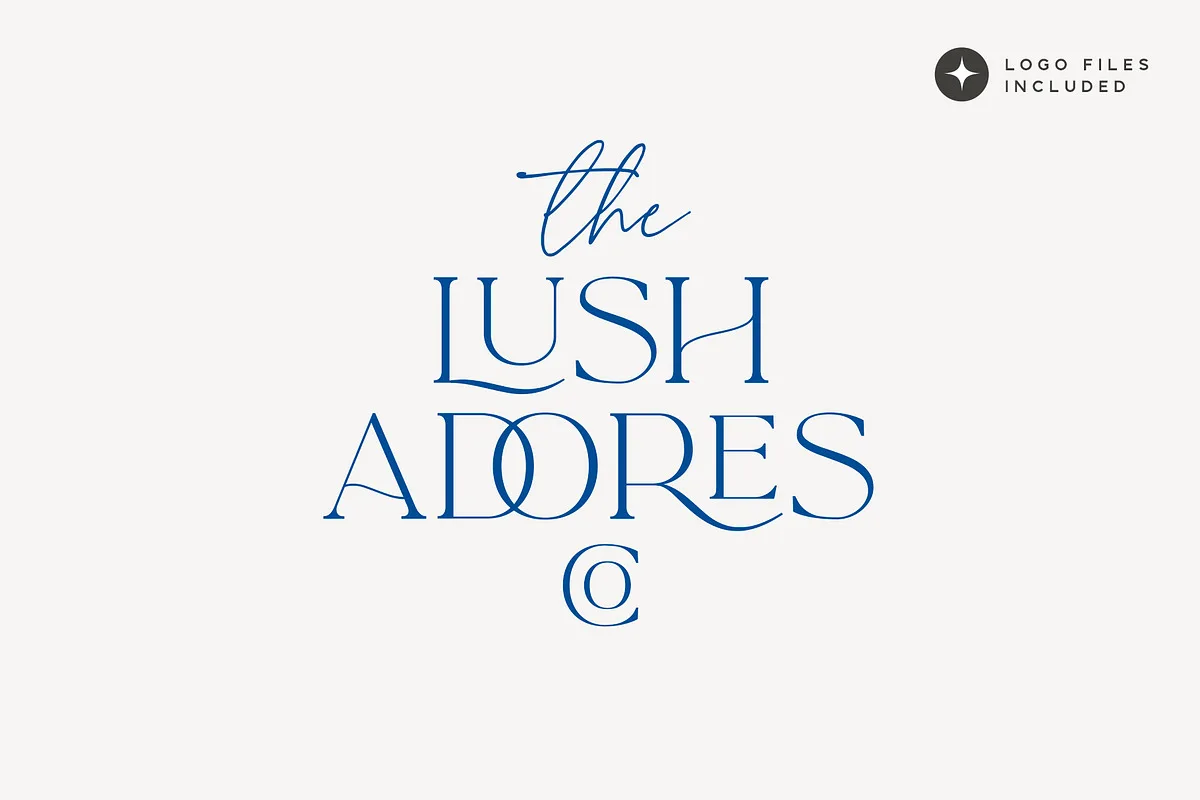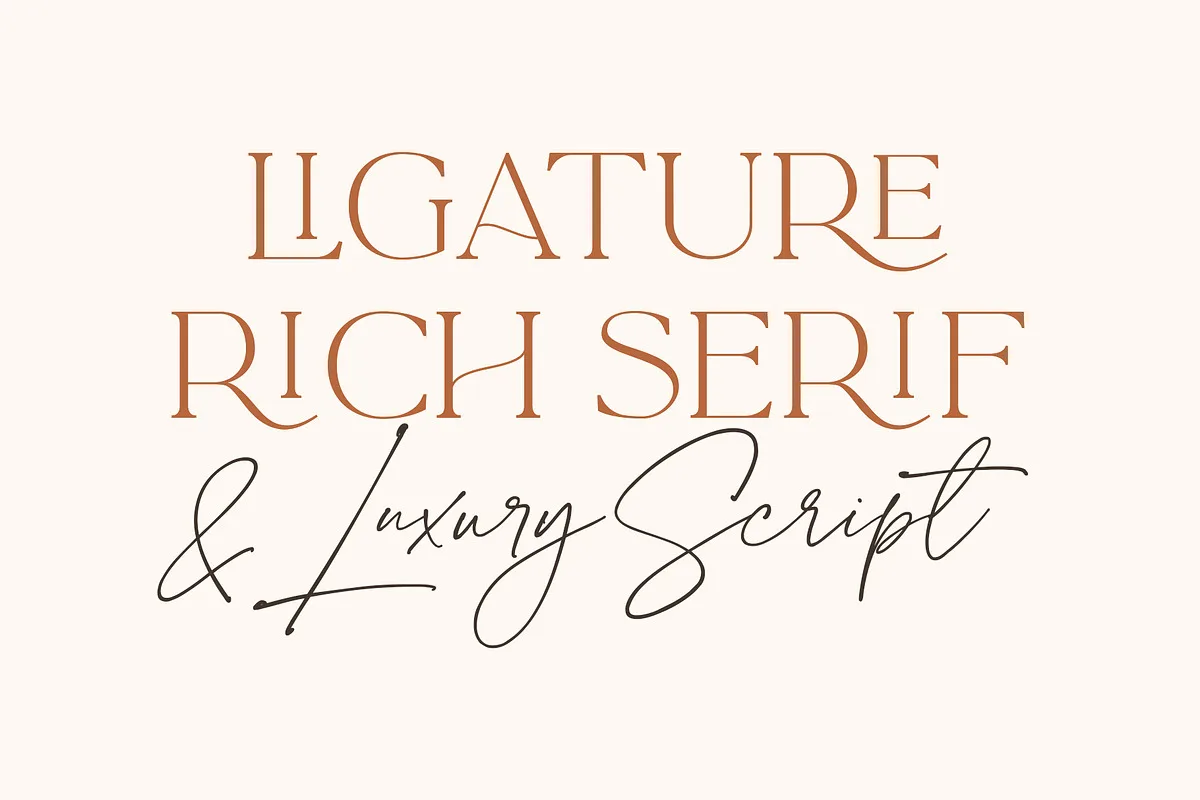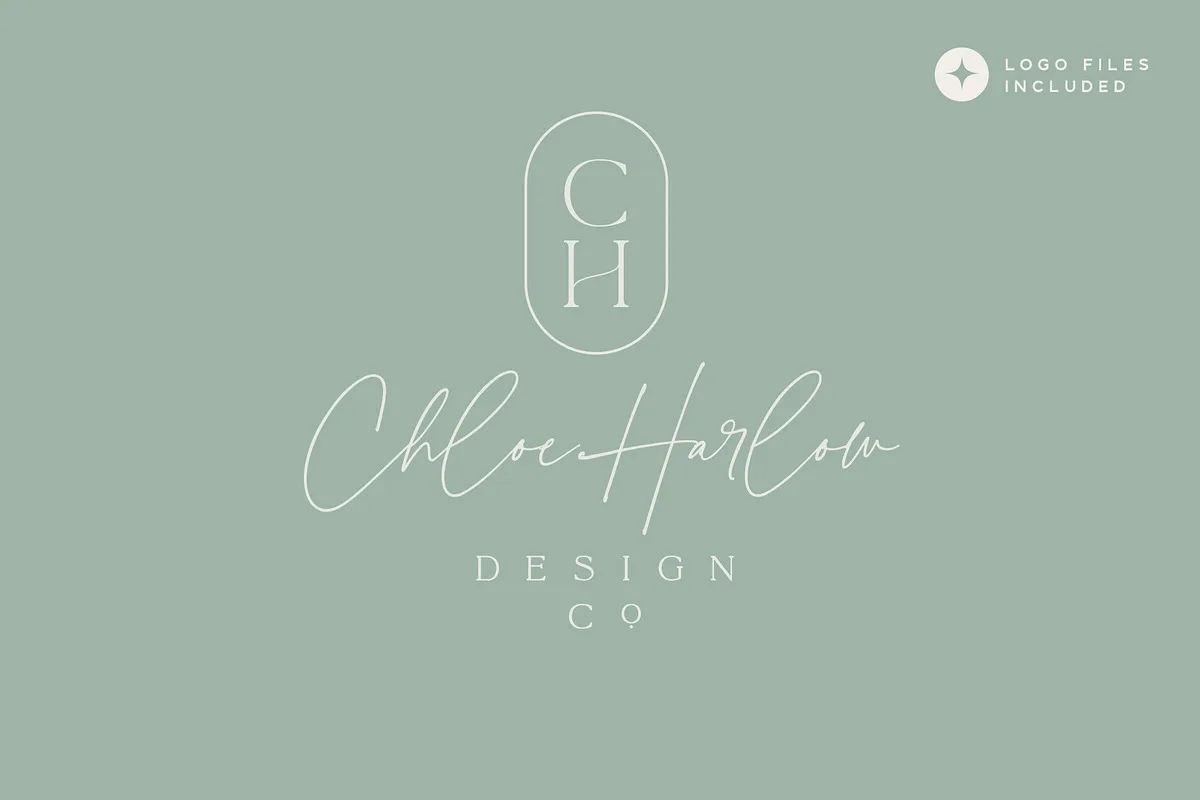
La Luxes Font
Indulge yourself in a luxurious typography pairing with La Luxes Font; a classic font duo consisting of an elegant Script & ligature-rich Serif. It is perfect for name cards, posters, logos, magazines, covers, banners, t-shirts and headers, or even large-scale artwork.
La Luxes Script • A clean, elegant hand-drawn script font containing upper & lowercase characters, all punctuation and numerals. Also contains 30 ligatures to help the text flow naturally and add a custom-made feel.
La Luxes Serif • A stylish & modern all-caps serif containing uppercase & new lowercase characters, all punctuation & numerals. Also contains 38 ligatures and 11 special characters giving you a variety of layout options.